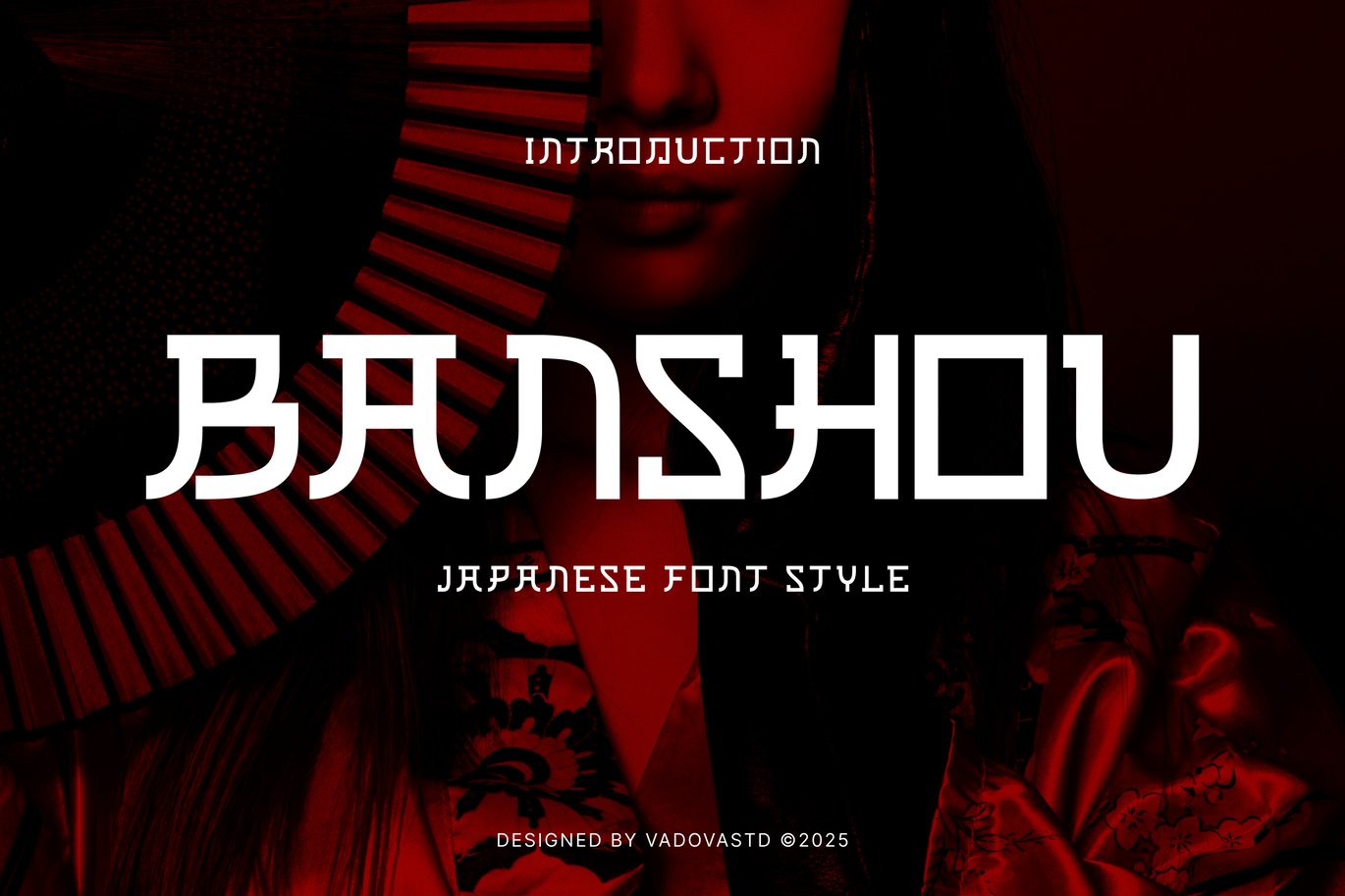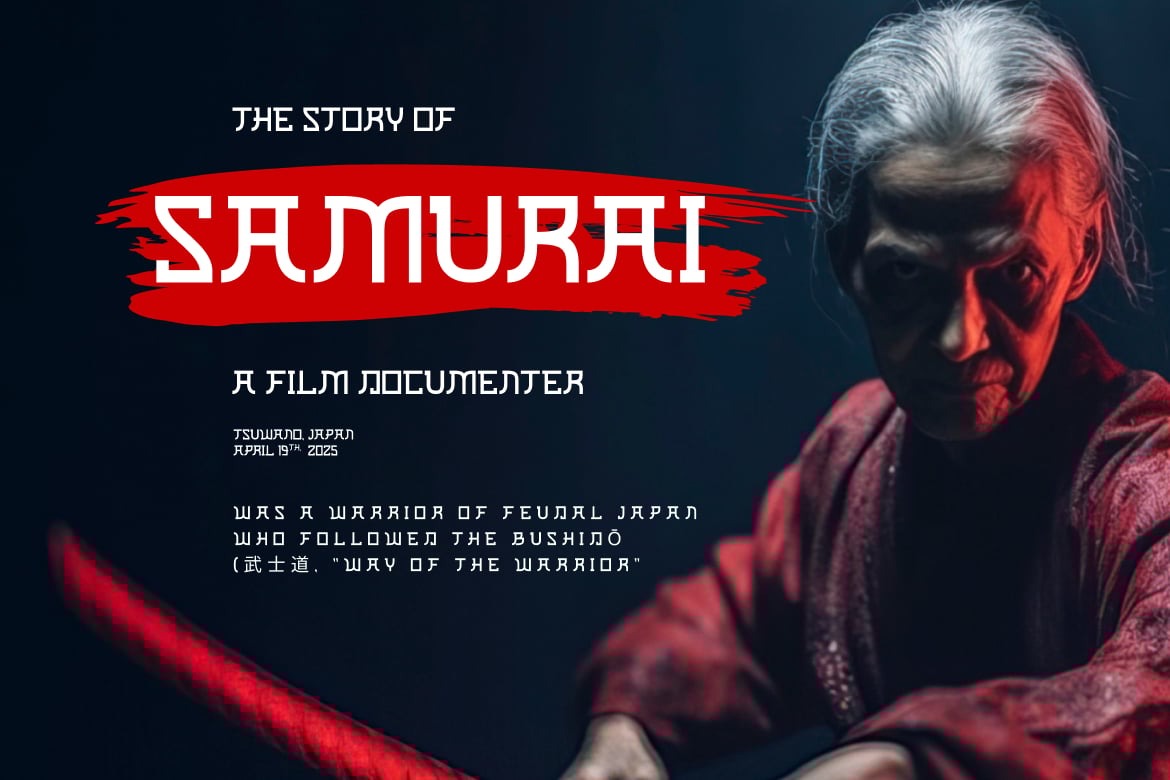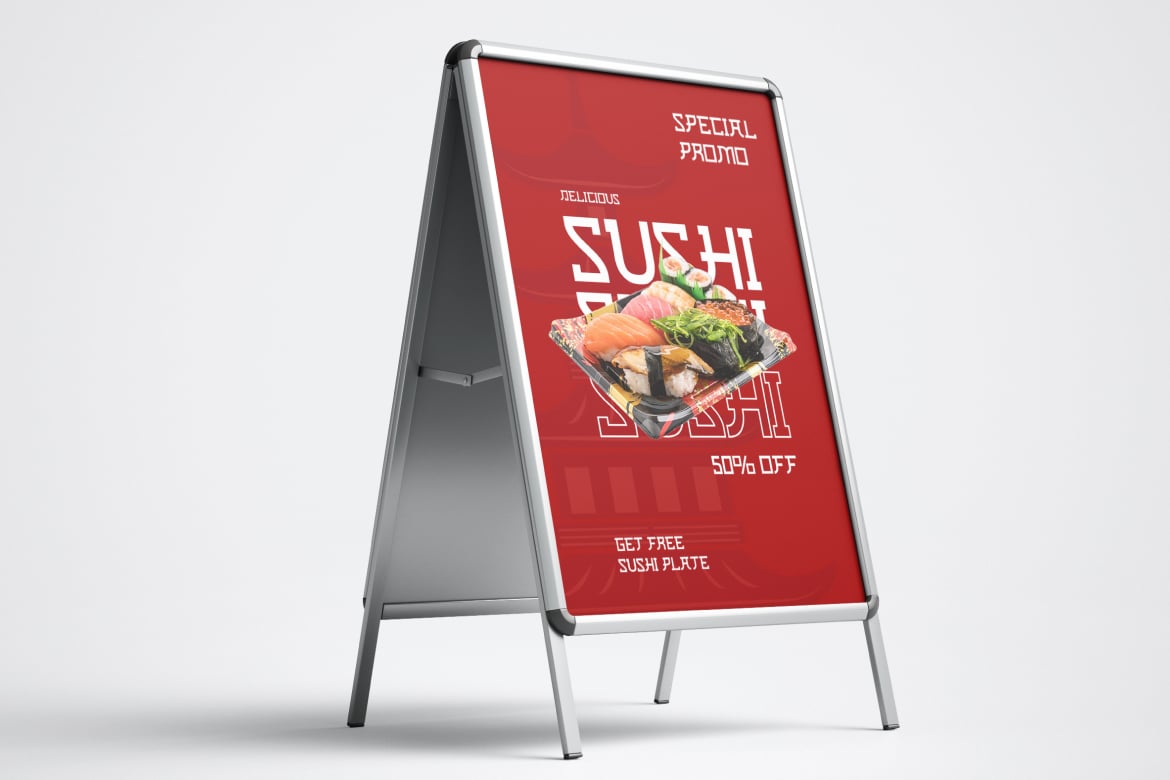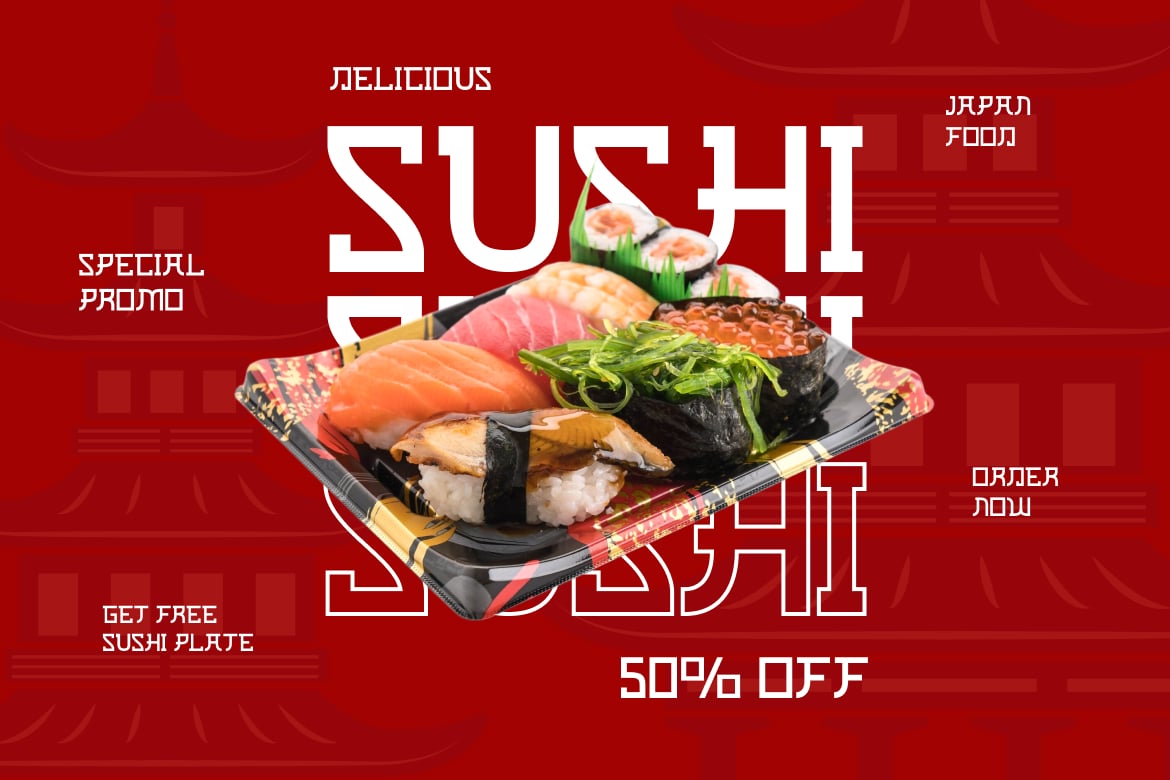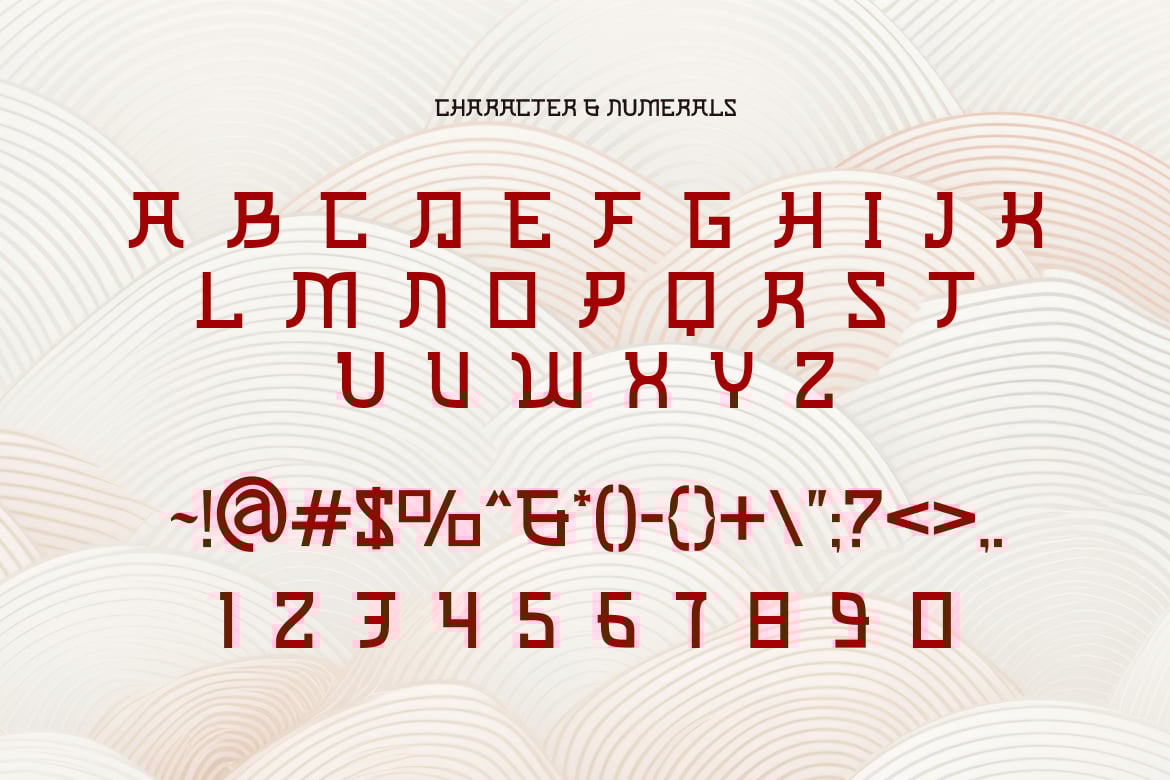
Banshou Japanese Font Font
Banshou is a modern Japanese-style display font with bold geometric shapes and futuristic aesthetics, making it perfect for gaming titles, tech branding, cyberpunk designs, anime posters, Asian-themed packaging, and streetwear logos. Its structured yet stylish design embodies a fusion of tradition and innovation, ideal for projects that require a unique, cutting-edge look with an Eastern influence.